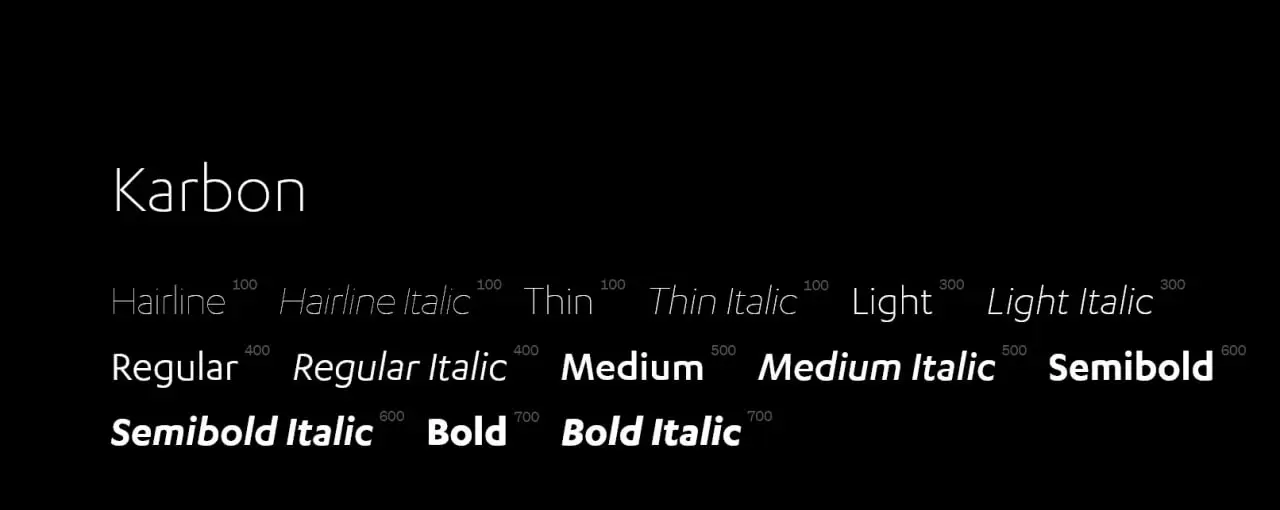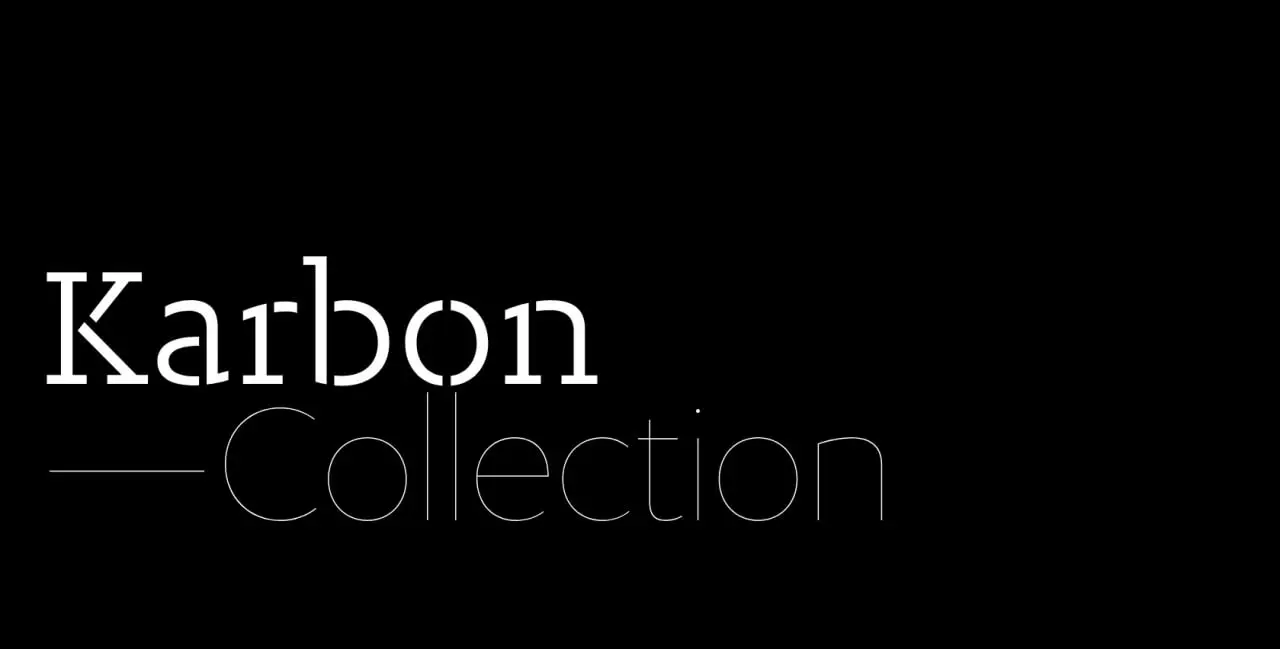
Klim Karbon & Karbon Slab Stencil Font Familes
The Klim Karbon and Karbon Slab Stencil Font Families offer a unique blend of modern design and versatility. With a range of styles and weights, these fonts are perfect for various applications, including branding, logos, web design, print media, and user interfaces.
• Multiple weights and styles for diverse design needs
• Stencil design adds a distinctive touch
• Clean and legible letterforms
• Styles: Regular, Bold, Italic, and more
• Ideal for creating eye-catching headlines and signage
• Use in both digital and print projects for a cohesive look
• Experiment with different weights to achieve the desired visual impact